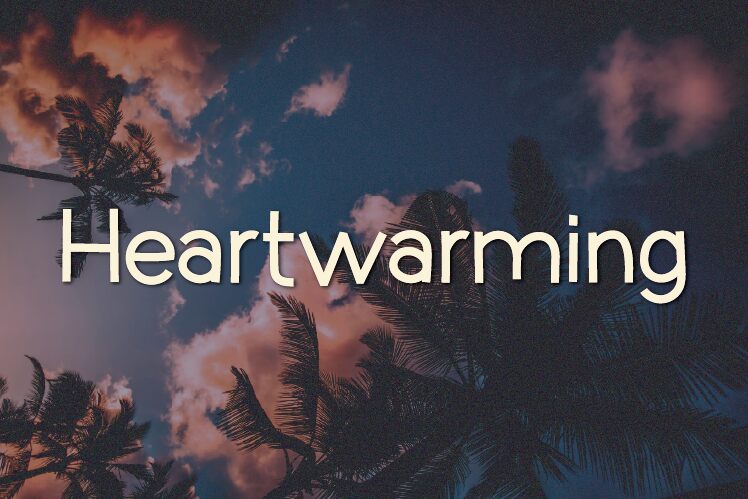
Heartwarming font family by Hanna Bie is a fancy font full of character, personality, and versatility. This free font family is ready to be downloaded and used in your upcoming personal projects. The font is simple yet elegant in its style and each element can be linked forming shapes.
Heartwarming is an ideal choice for film posters and titles, opening scenes for short films, casual publications, packaging designs, and magazine covers. It is also perfect for typography artwork, themed bookstore displays, and personal poetry books and novels. The font works well in modern menus as well as dashing branding designs including business cards, badges, logotypes, etc.